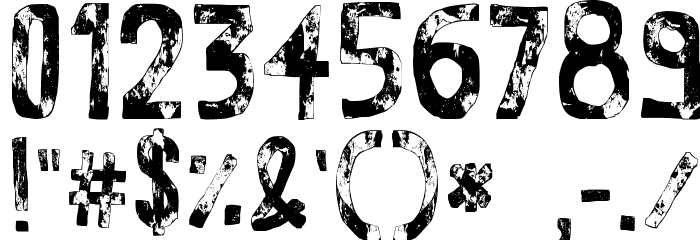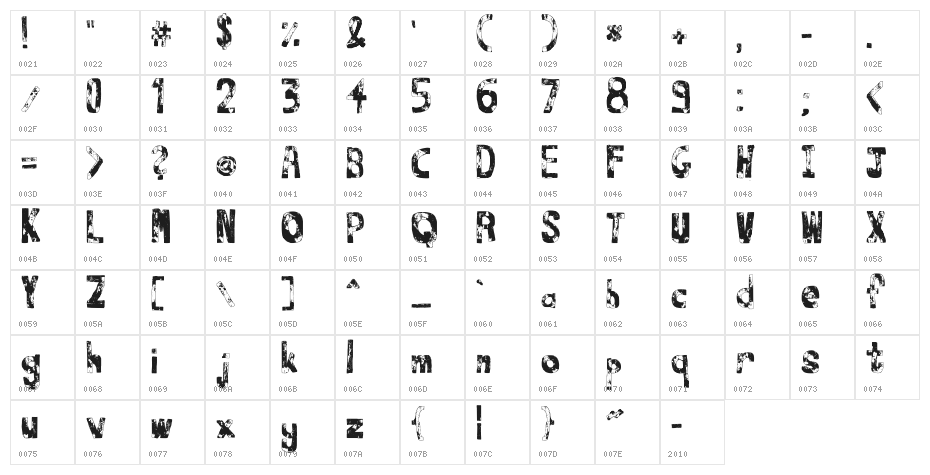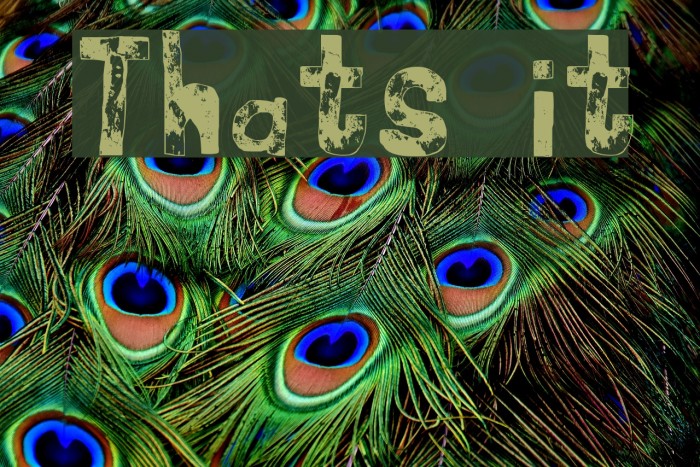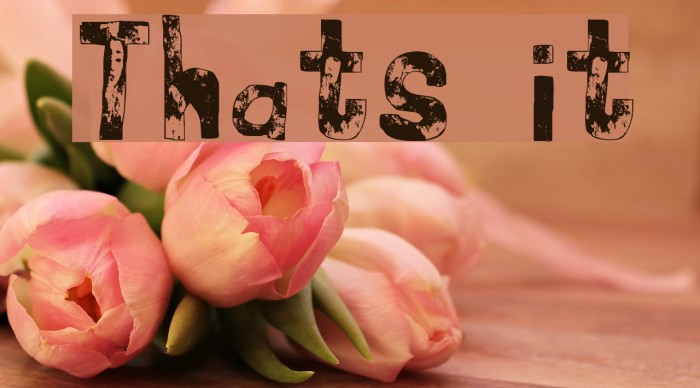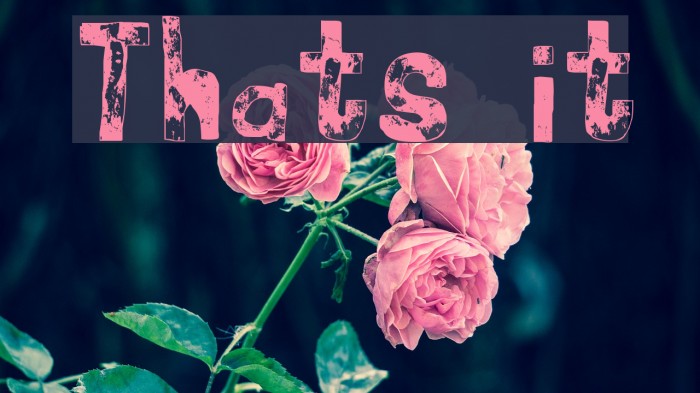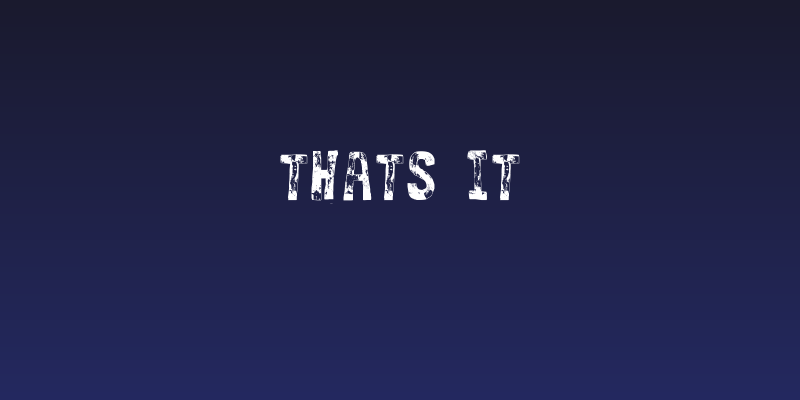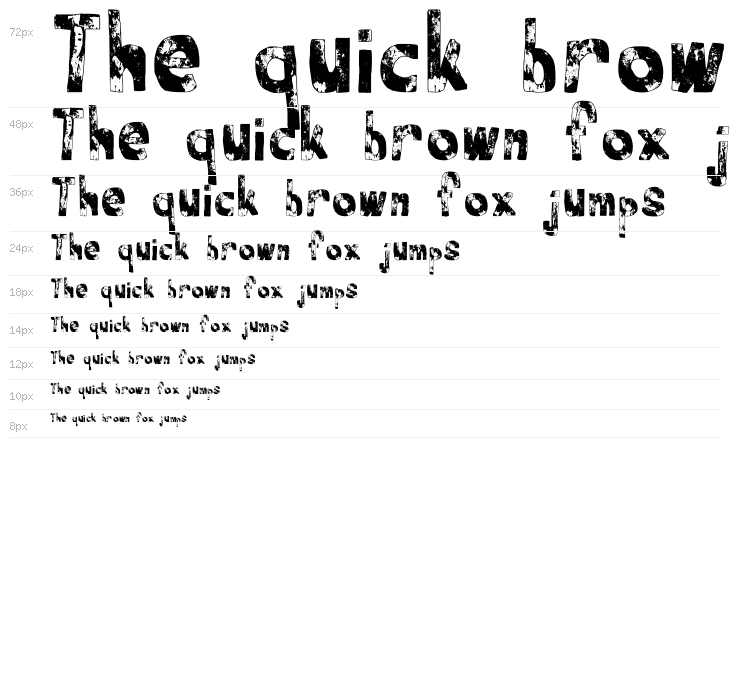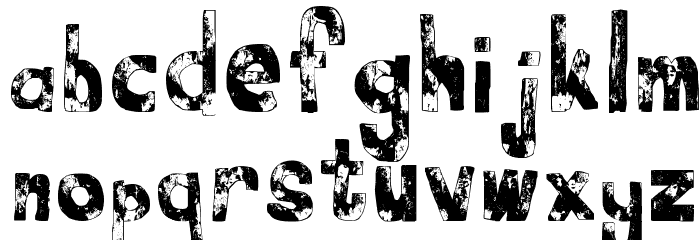
Thats it Font
Thats it Description
This font features a distressed, grunge style with a textured appearance that gives it a worn and rugged look. Each character appears as if it has been weathered over time, with irregular edges and a rough surface. The uppercase and lowercase letters maintain a consistent height, while the numerals and special characters follow the same distressed theme. This font is ideal for projects that require a bold, edgy aesthetic, such as posters, album covers, or any design that aims to convey a sense of rebellion or nonconformity. The unique texture adds depth and character, making it stand out in any composition.
| Overall Style | Grunge, Edgy |
| Proposed Projects | Posters, album covers, rebellious-themed designs, urban art projects. |